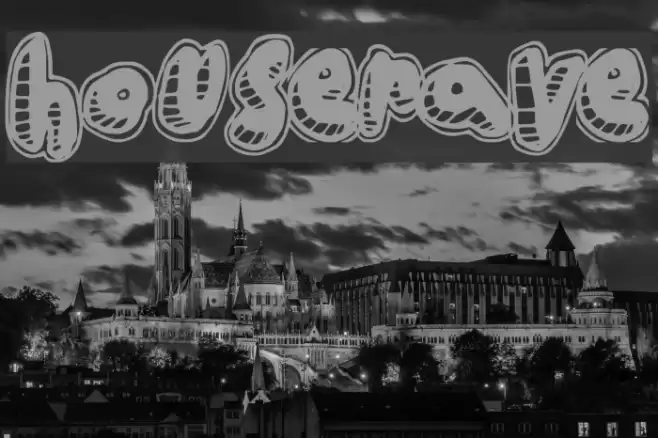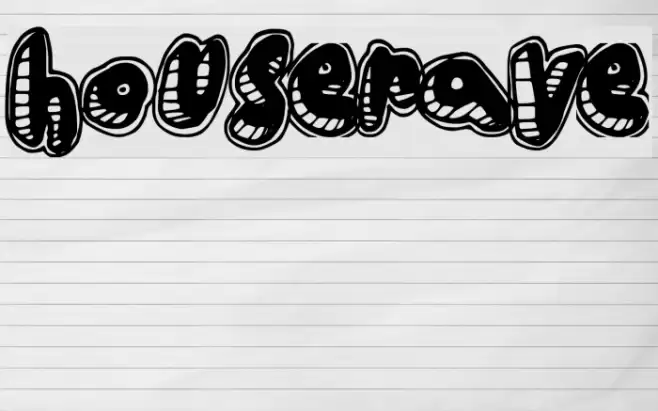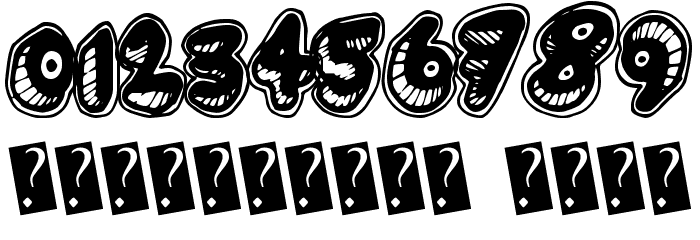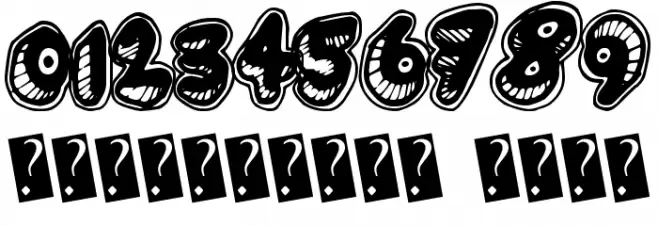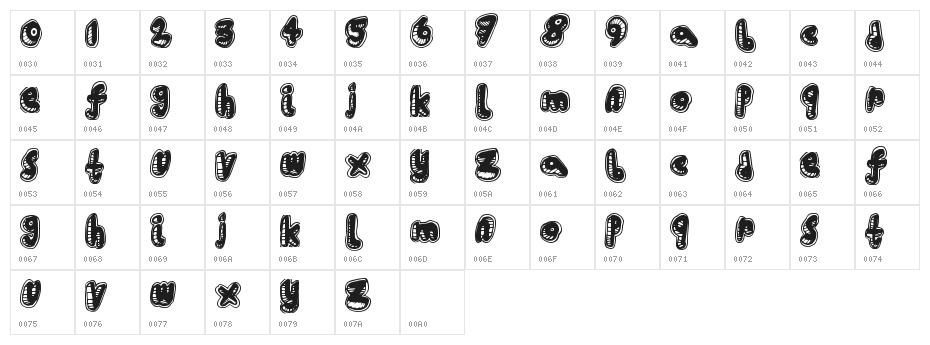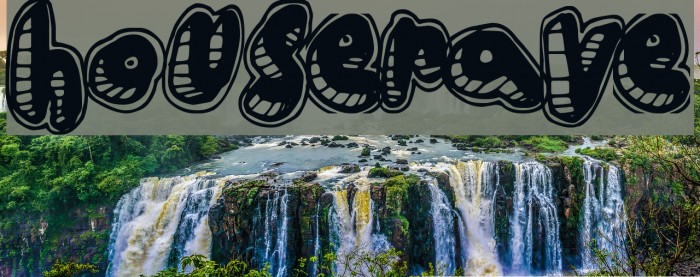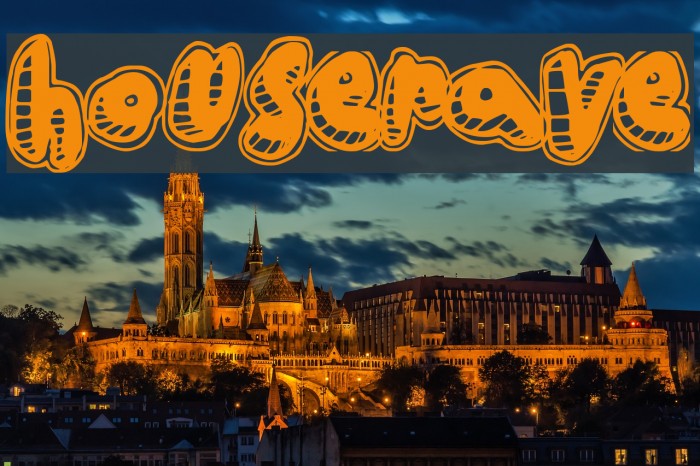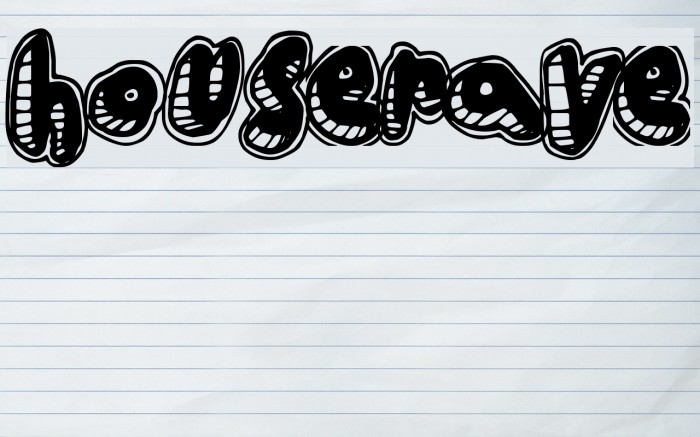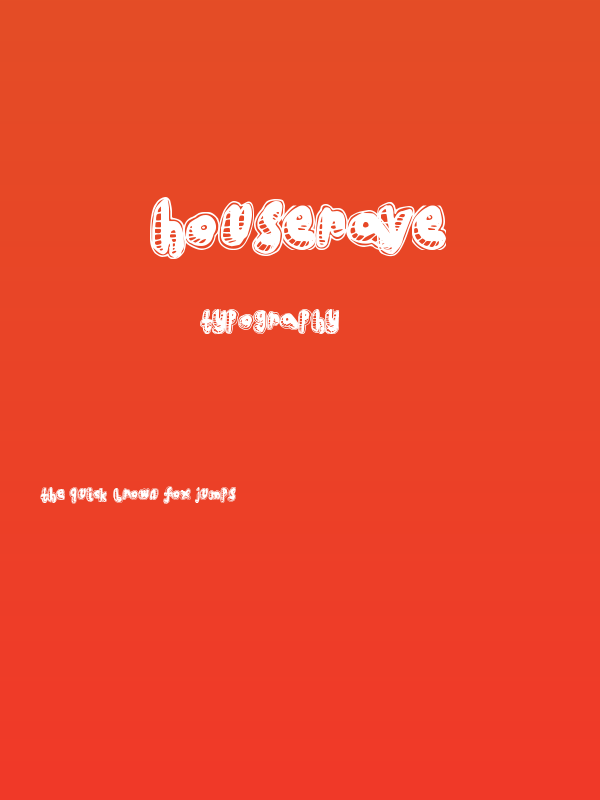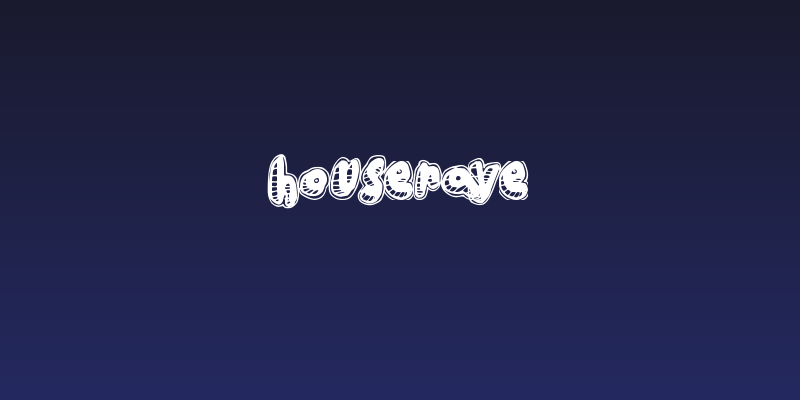
HouseRave Font
HouseRave Description
This font features a bold, playful style with a distinct hand-drawn appearance. Each character is outlined with a thick, black border, giving it a cartoon-like feel. The interior of the letters is filled with a pattern of stripes or dots, adding a textured look. The font is highly decorative, with exaggerated curves and whimsical shapes that make it stand out. It has a lively and energetic vibe, suitable for creative and fun projects. The numbers and special characters maintain the same playful aesthetic, ensuring consistency across all elements.
A bold, playful, hand-drawn font with a cartoon-like, textured appearance from Cartoon fonts.
- Proposed Projects: Ideal for children's books, party invitations, posters, and playful branding.